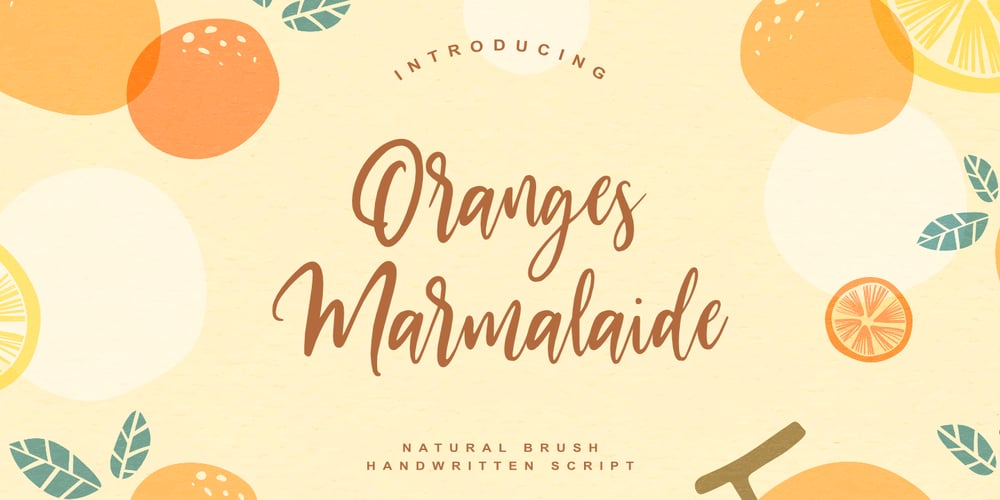
Oranges Marmalaide Font Family was designed by Ardian Nuvianto and published by Ardian Nuvianto. Oranges Marmalaide contains 1 styles and family package options. Oranges Marmalaide is consisting of a fashionable handwritten-style script make looks classy and stylish. This font was created to look as close to a natural handwritten script as possible by including 12 standard ligatures.Oranges Marmalaide is perfect for branding projects, logo, wedding designs, social media posts,and anything that you want.Here is that you get:With +230 Glyphs12 Standard LigaturesWorks on PC Windows & MacSimple installationsAccessible in the Adobe Illustrator, Adobe Photoshop, Adobe InDesign, even work on Microsoft Word.PUA Encoded Characters – Fully accessible without additional design software.Drop me message if you have any questions.Or you can mail me atdamarkurung8@gmail.comHope you enjoy itThanks